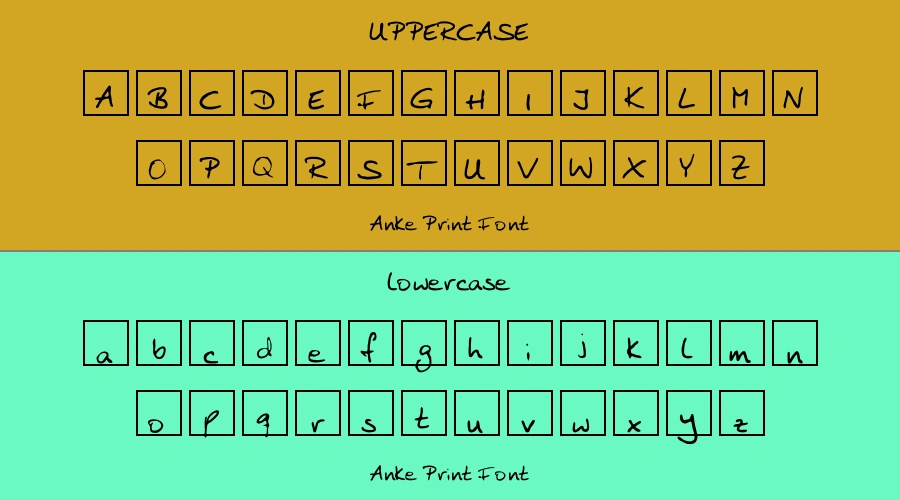
About Anke Print Font
Anke Print Font represents a sophisticated approach to type design, balancing geometric precision with visual comfort. Perfect for financial statements, this font family showcases impressive longevity and technical merit throughout its character set. Designers appreciate its versatility and reliability.
Designers will appreciate nuanced touches including calculated proportions and expert sets, adding sophistication to any project. These features become apparent in advertisements, where body text reading matters most. The careful treatment of ascender height and historical context ensures optimal performance.